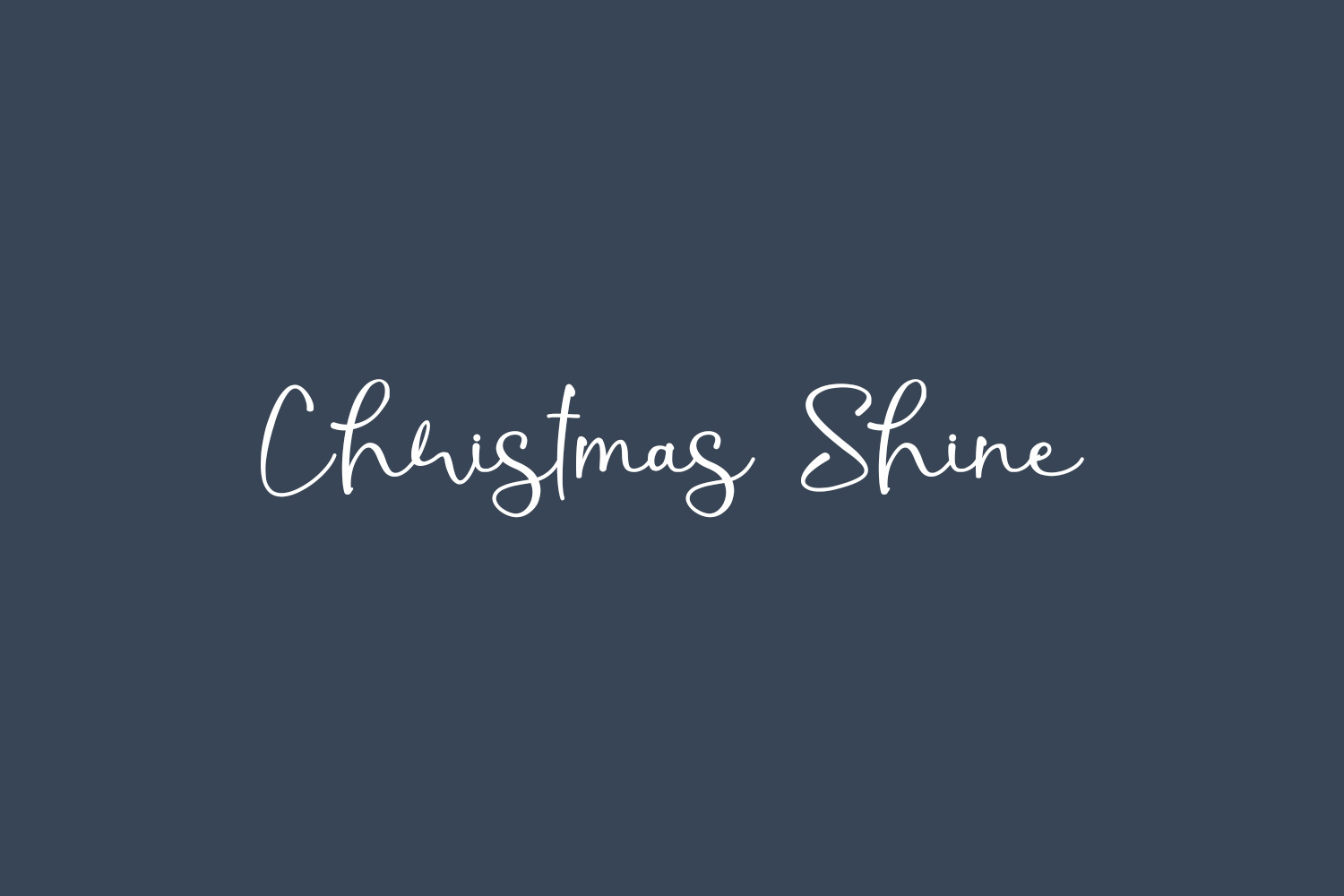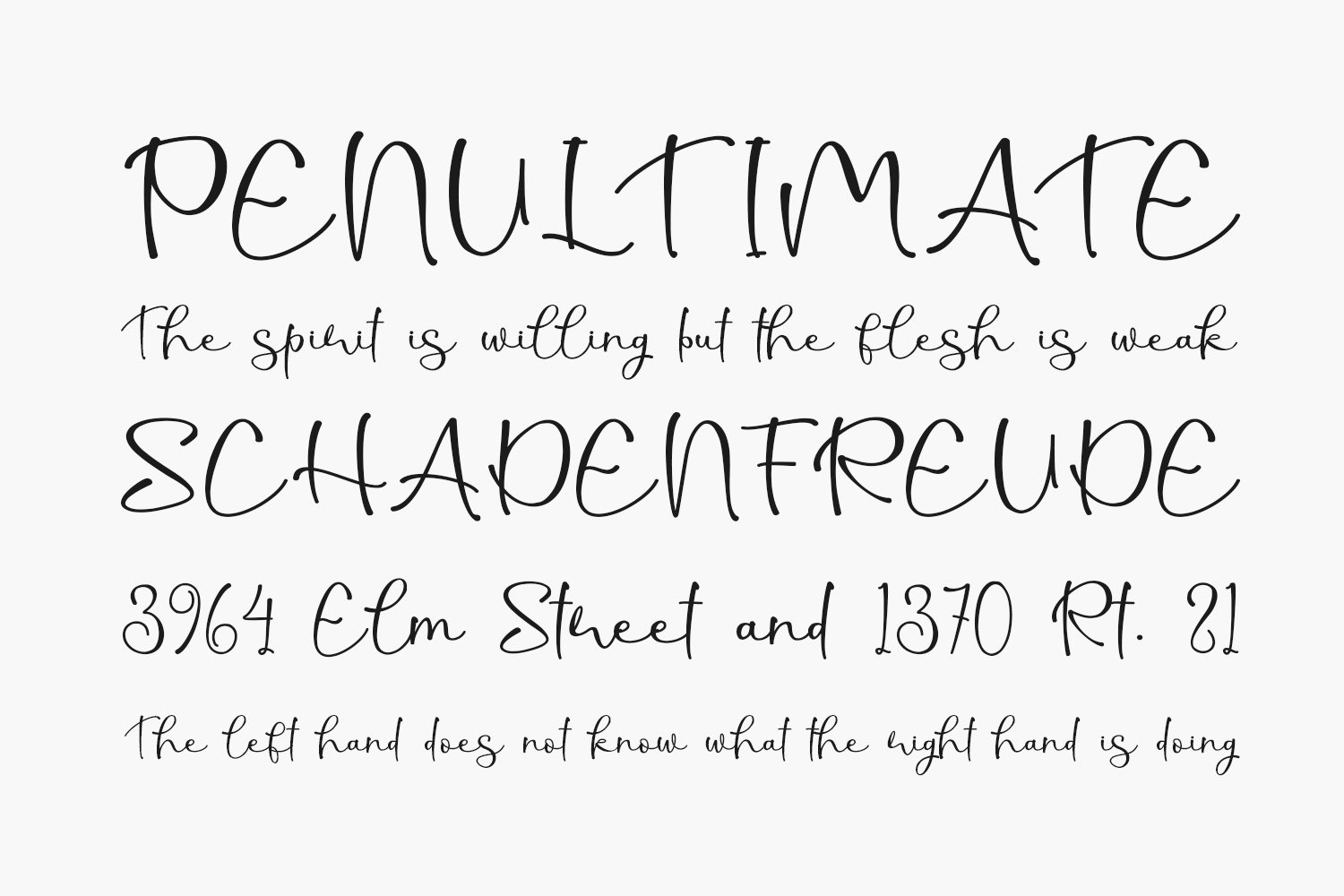
Christmas Shine Free Font Family is a beautiful, handwritten script that evokes the warmth and joy of the holiday season. Its flowing, graceful letters seem to dance and sparkle on the page, radiating the hope and cheer of the season. Whether you’re creating a festive holiday card or adding a touch of whimsy to your Christmas decorations, this font is sure to add a touch of magic to your celebrations.